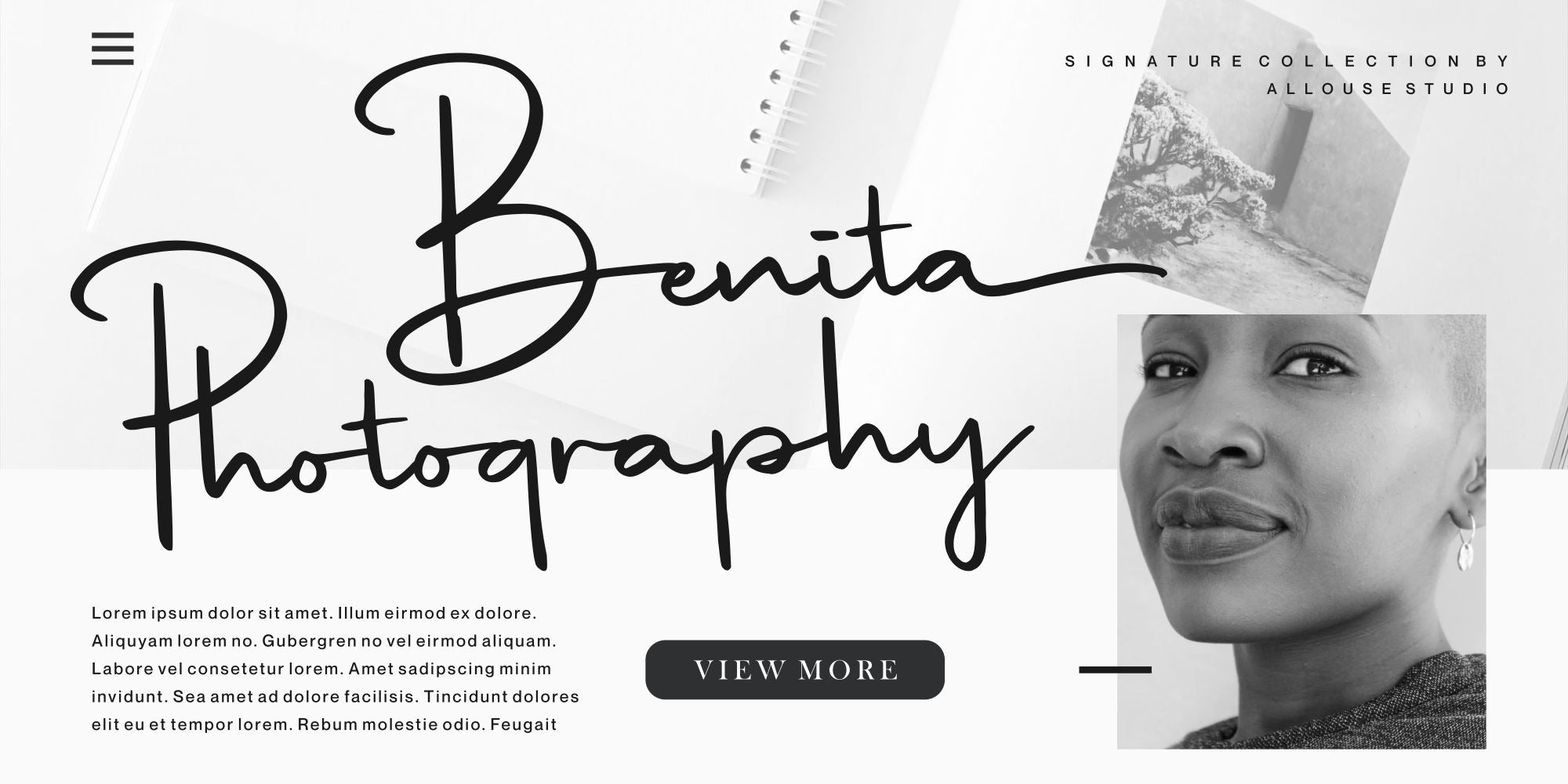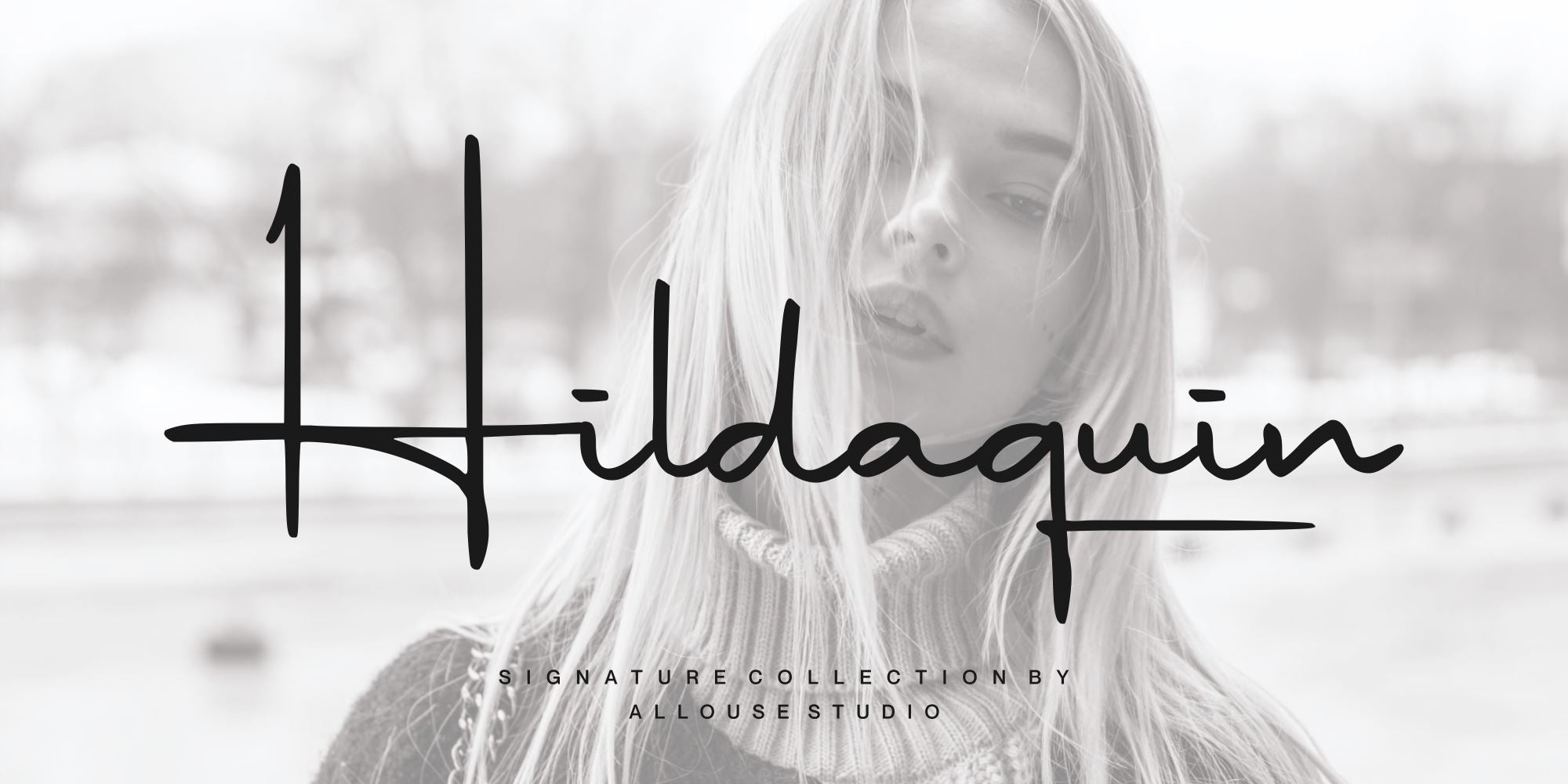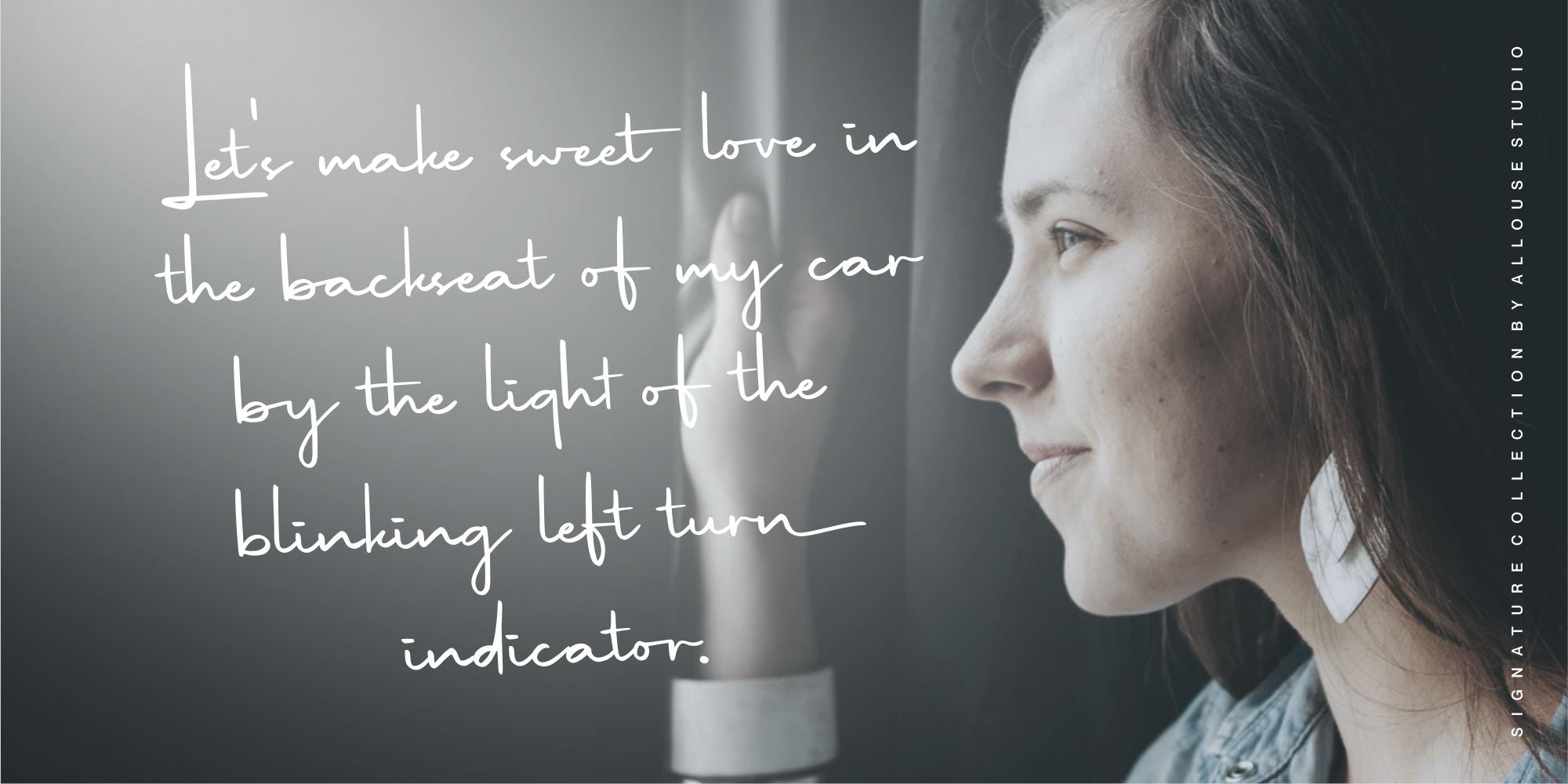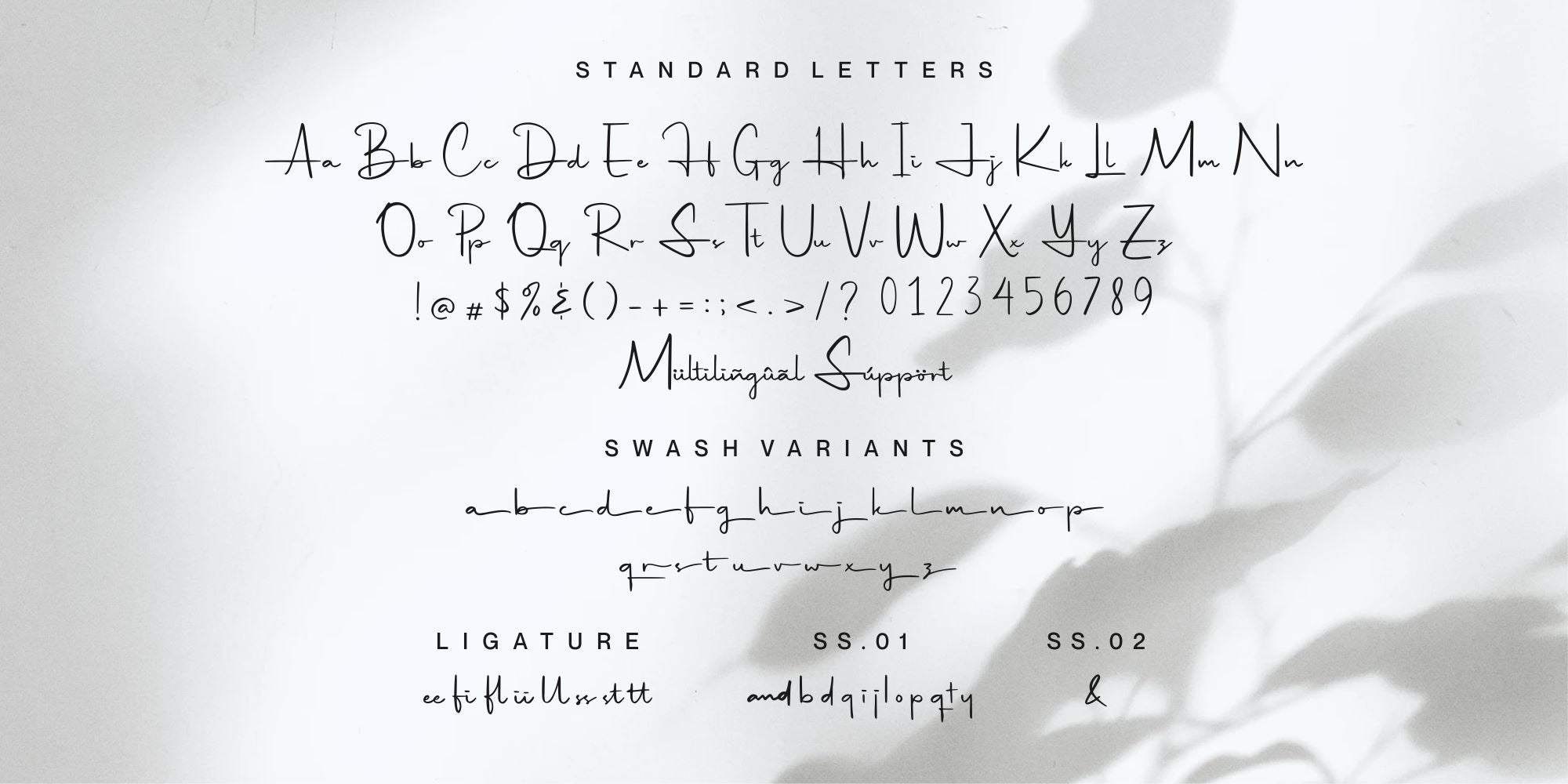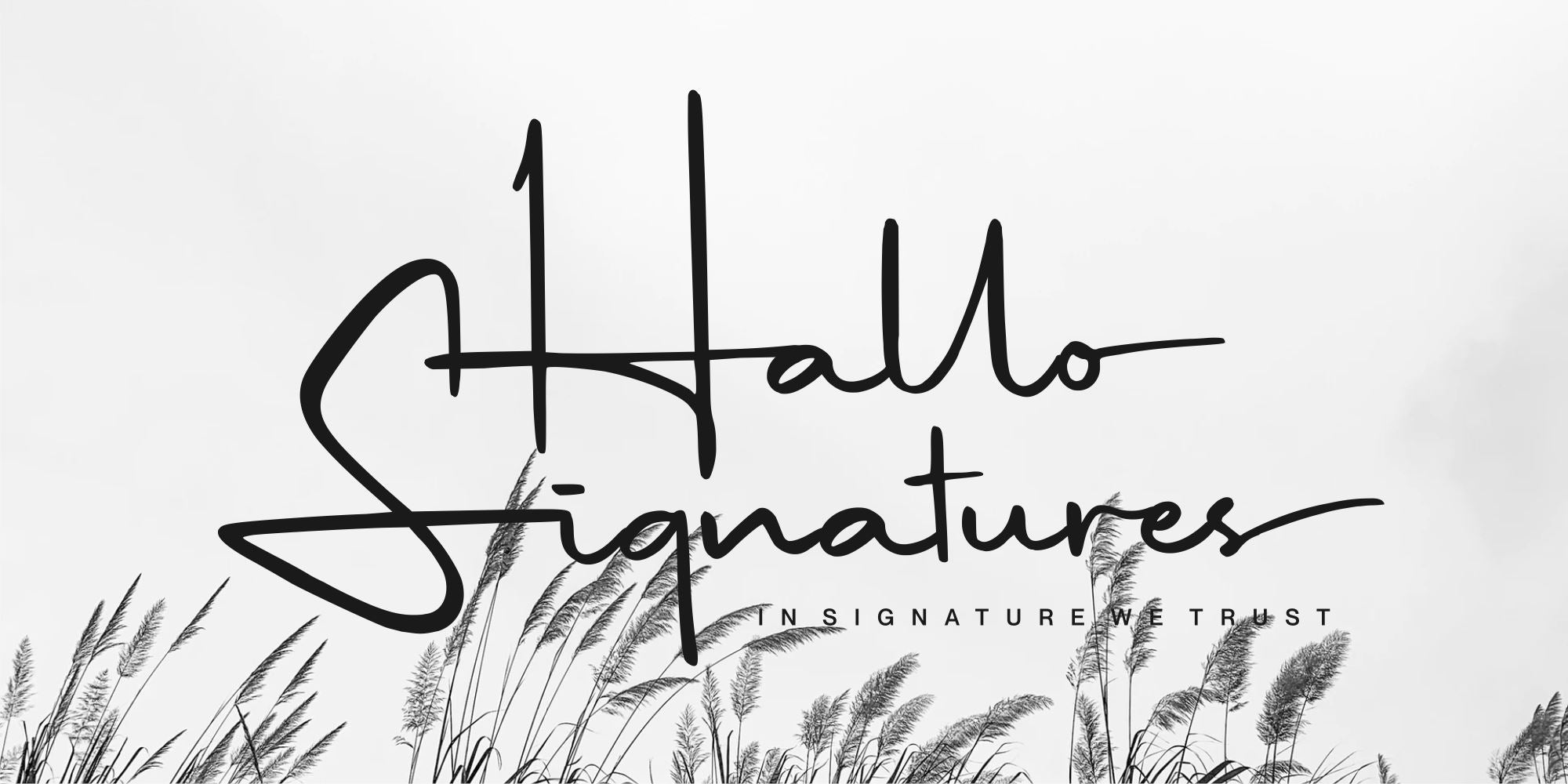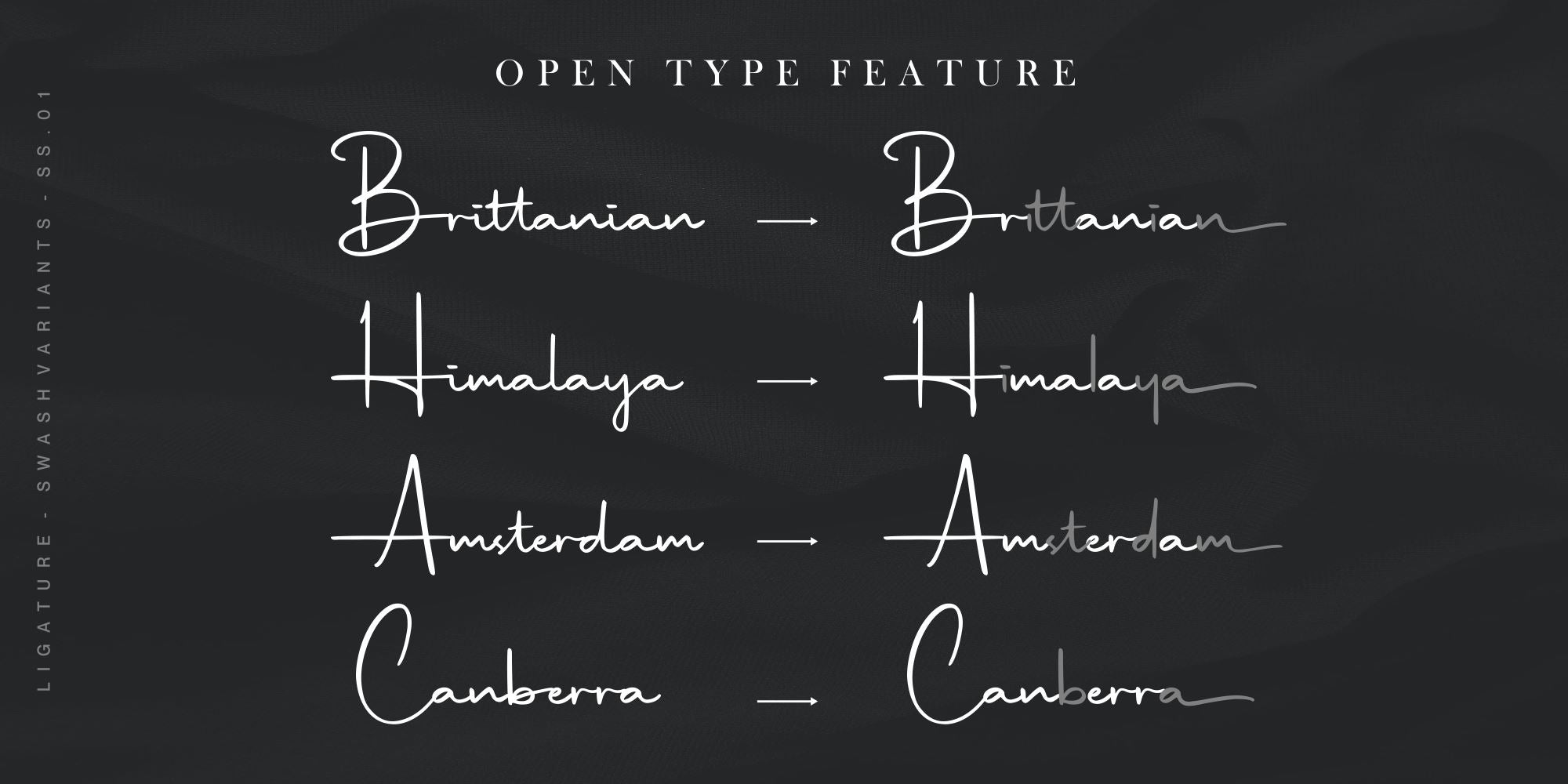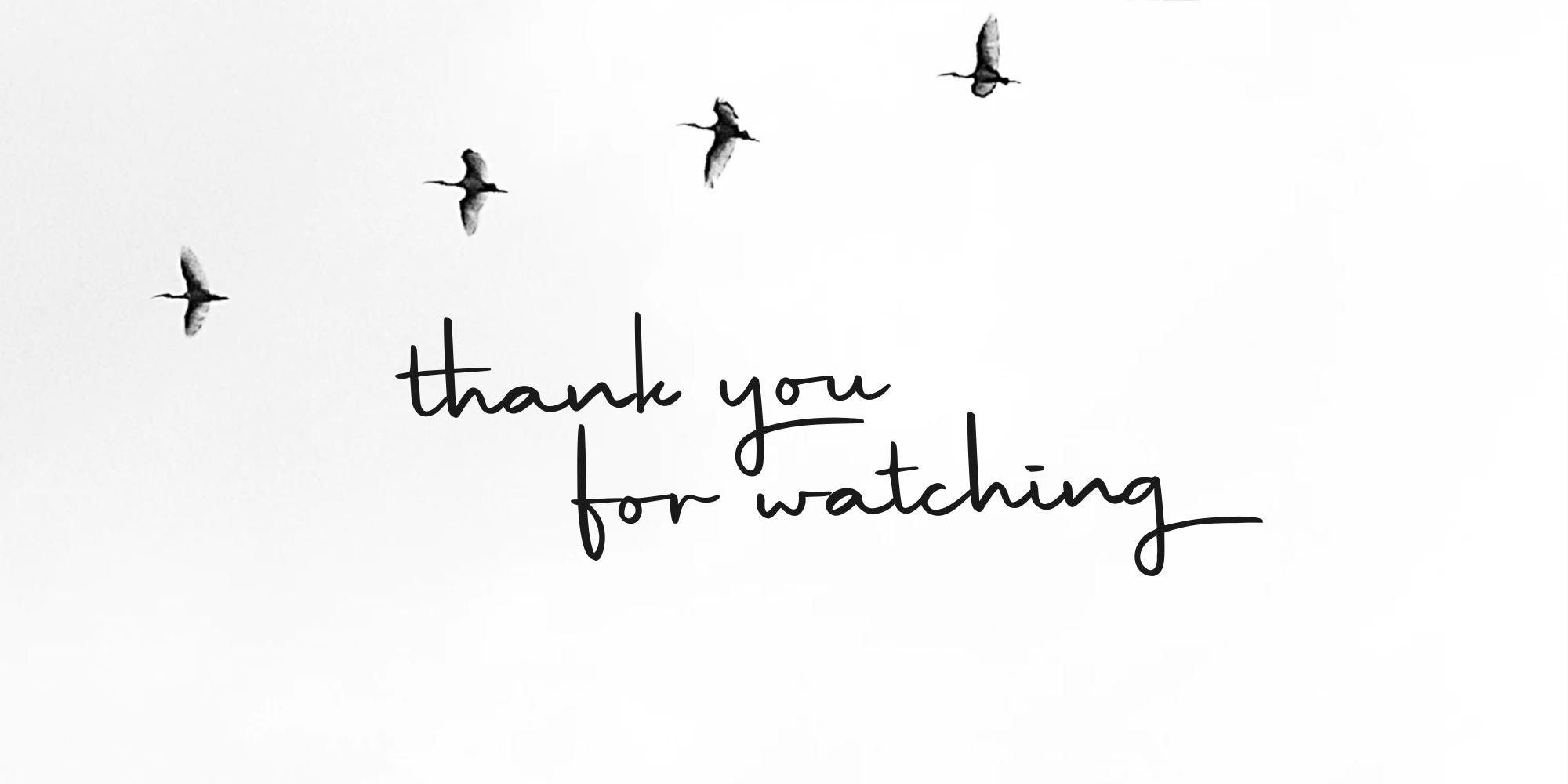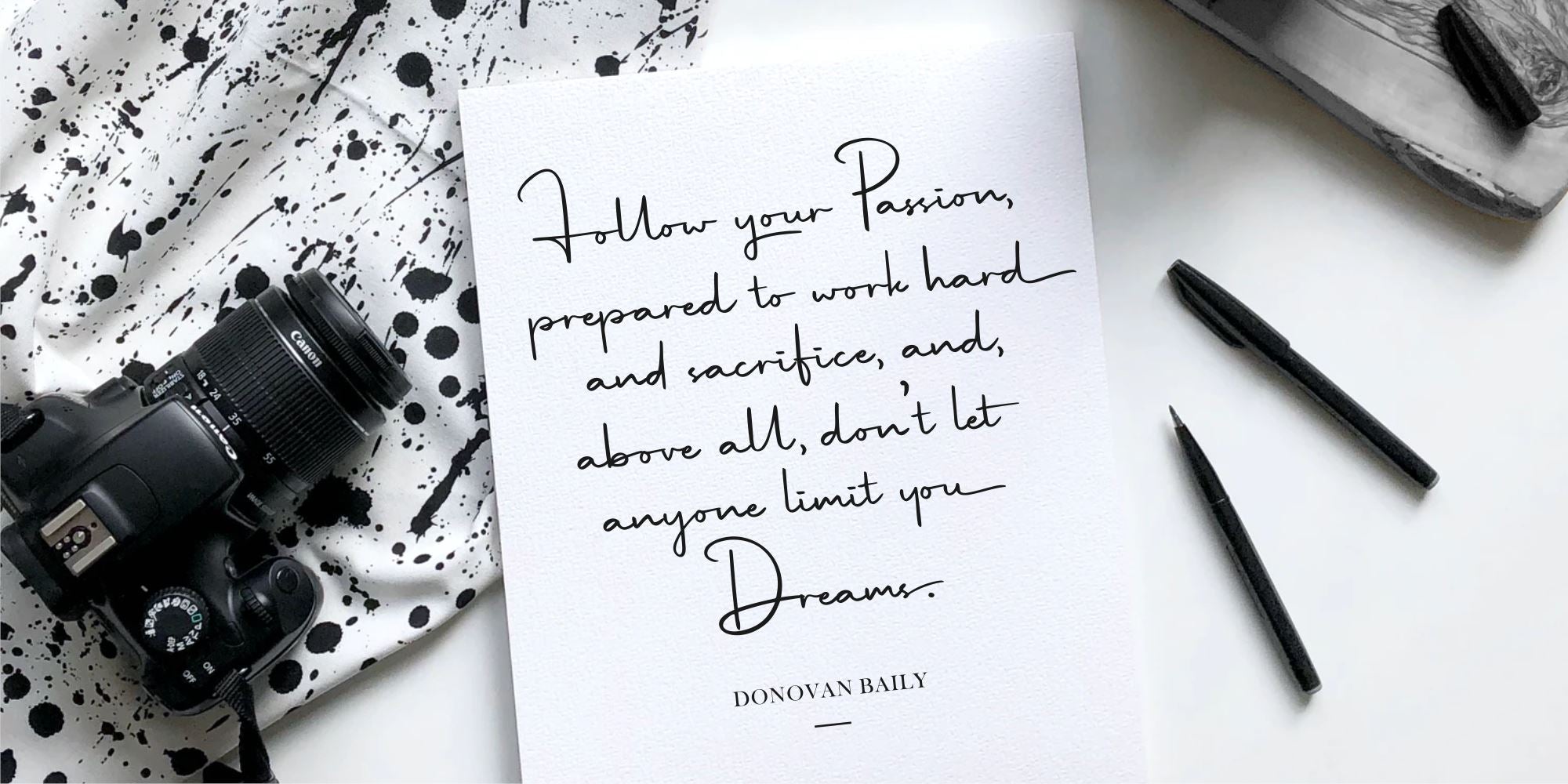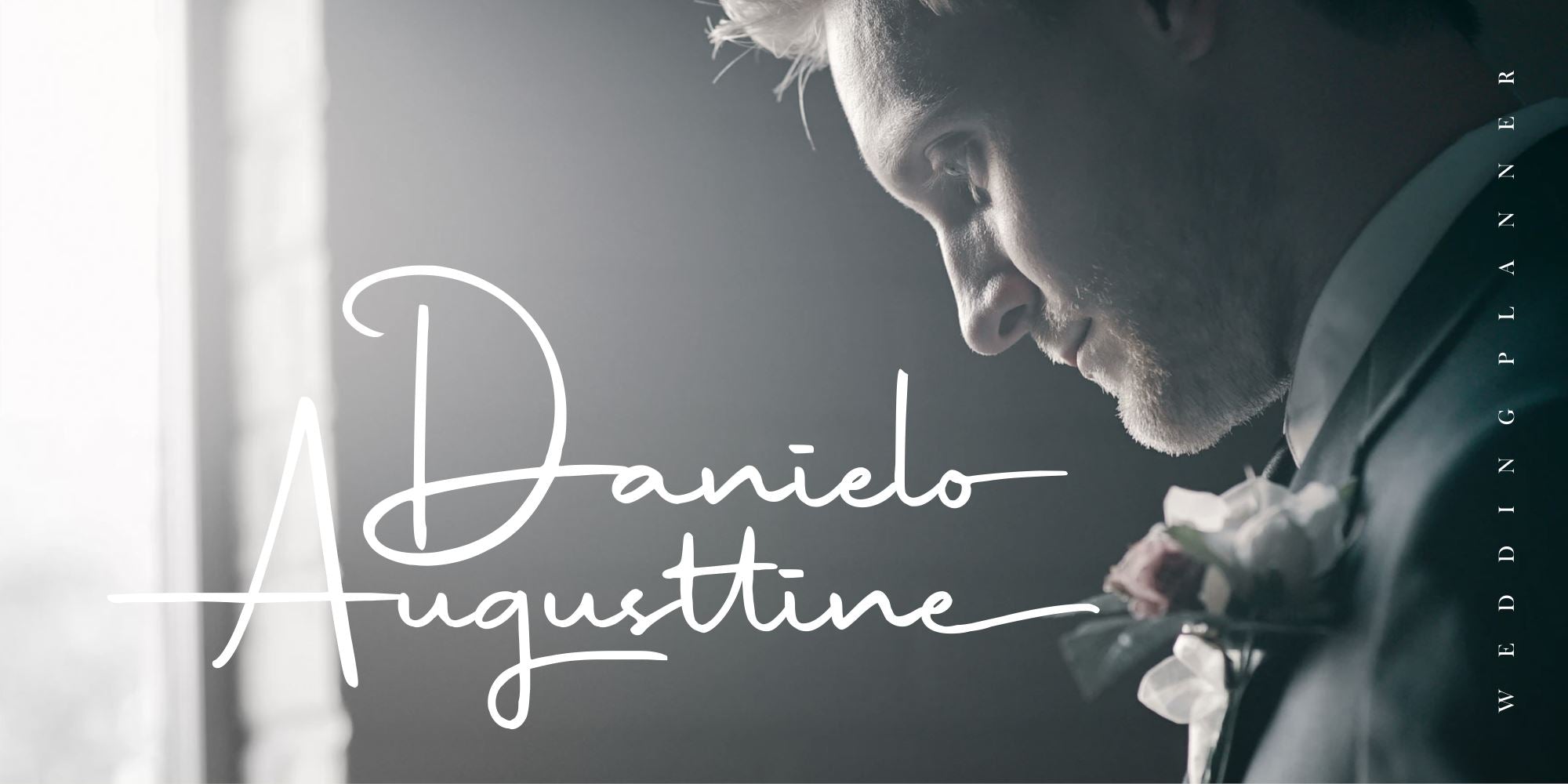
Hildaquin
About Hildaquin
Proudly Presenting, Hildaquin a Signature Collection Font. Hildaquin is perfect for any titles, logo, product packaging, branding project, megazine, social media, wedding, or just used to express words above the background. Hildaquin also come with swash and Multi-Lingual Support. Enjoy the font, feel free to comment or feedback, send me PM or email. Thank You!